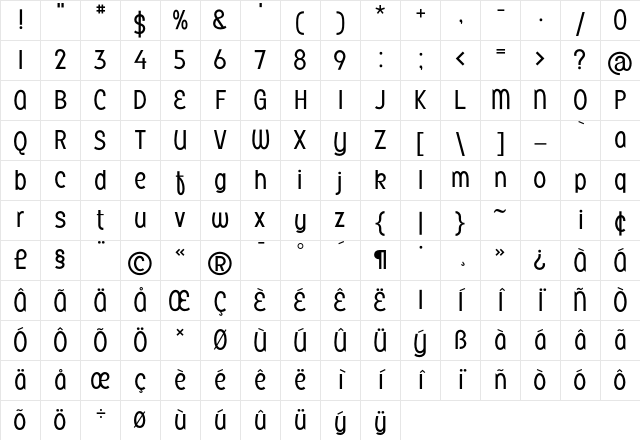
Sister Light
Design Context for Sister
Sister is a composed and adaptable typeface that performs quietly and consistently across a wide range of design contexts. Its slender proportions lend an understated elegance to any composition.